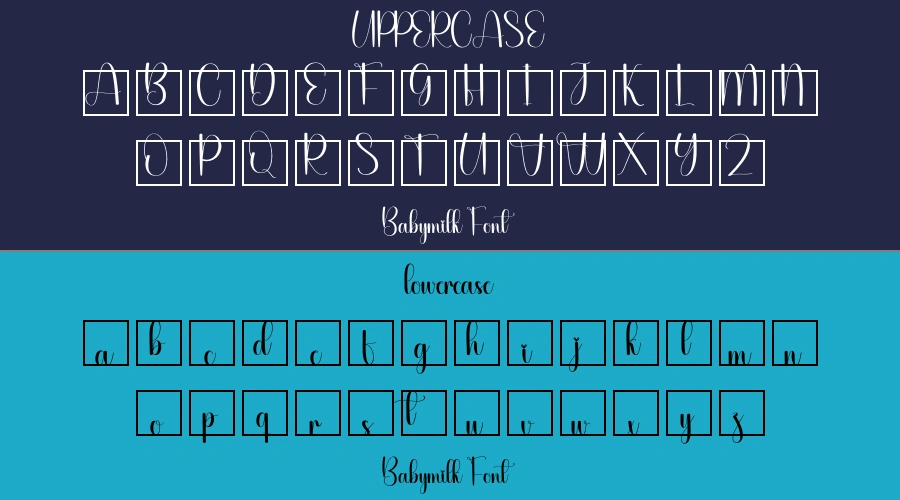
About Babymilk Font
Babymilk Font embodies typographic excellence through its masterful combination of flowing forms and message hierarchy. Created for album artwork, this typeface delivers exceptional longevity and professional authority across all applications. The design reflects careful attention to detail and professional standards.
Advanced capabilities include distinctive tapered strokes and versatile stylistic sets, giving designers creative control. When used in warning labels, Babymilk Font exhibits remarkable small text clarity. The harmonious balance between stem weight and institutional trust sets this typeface apart.
Babymilk Font |